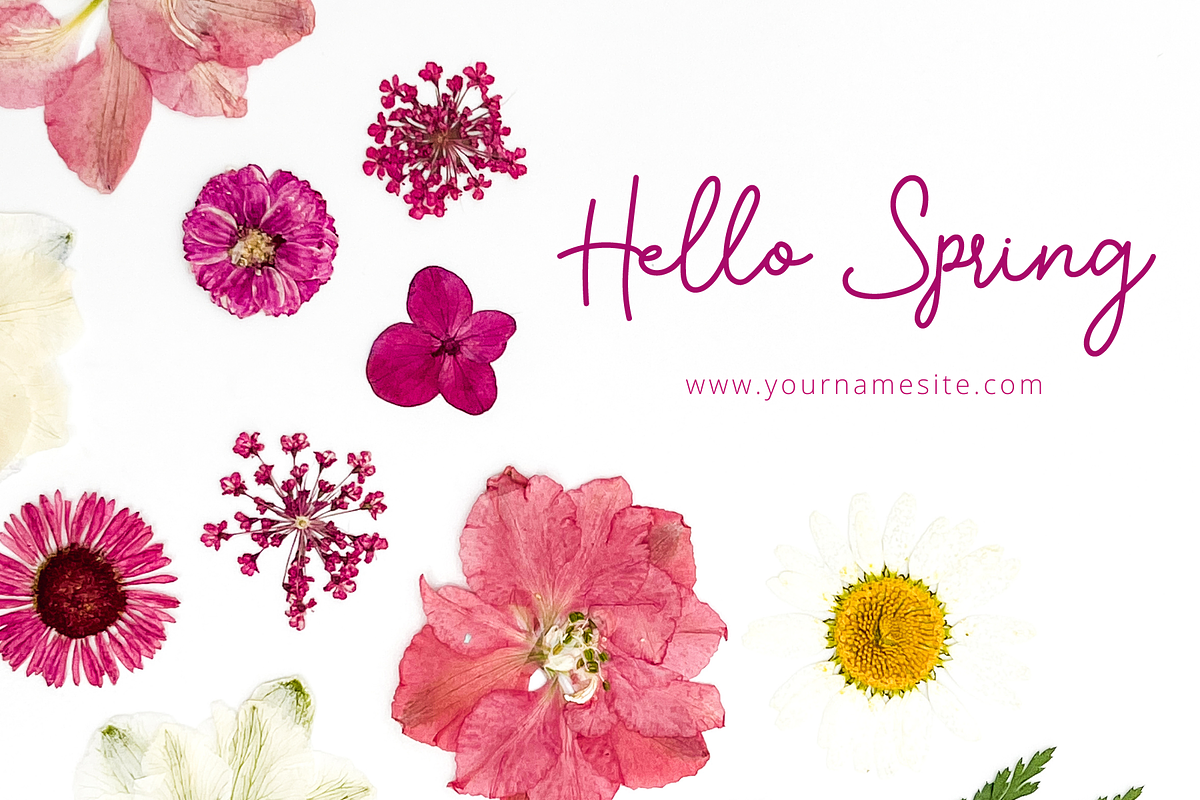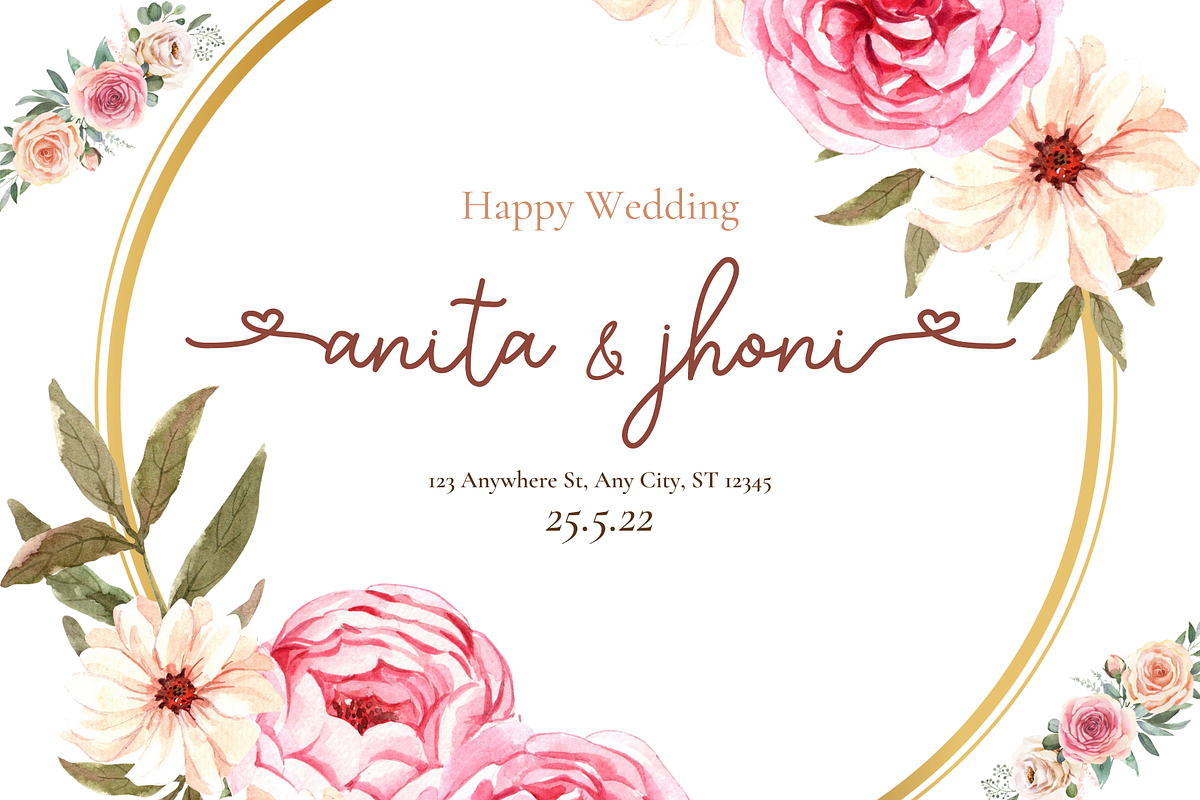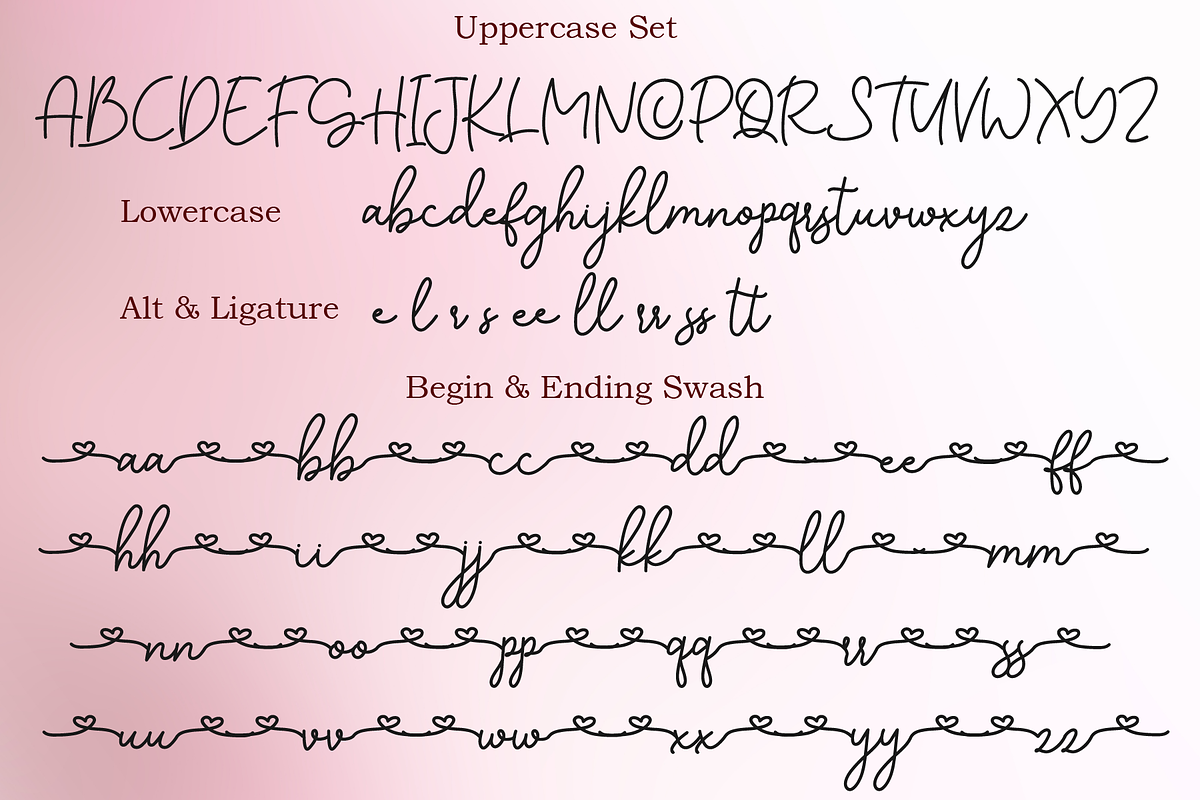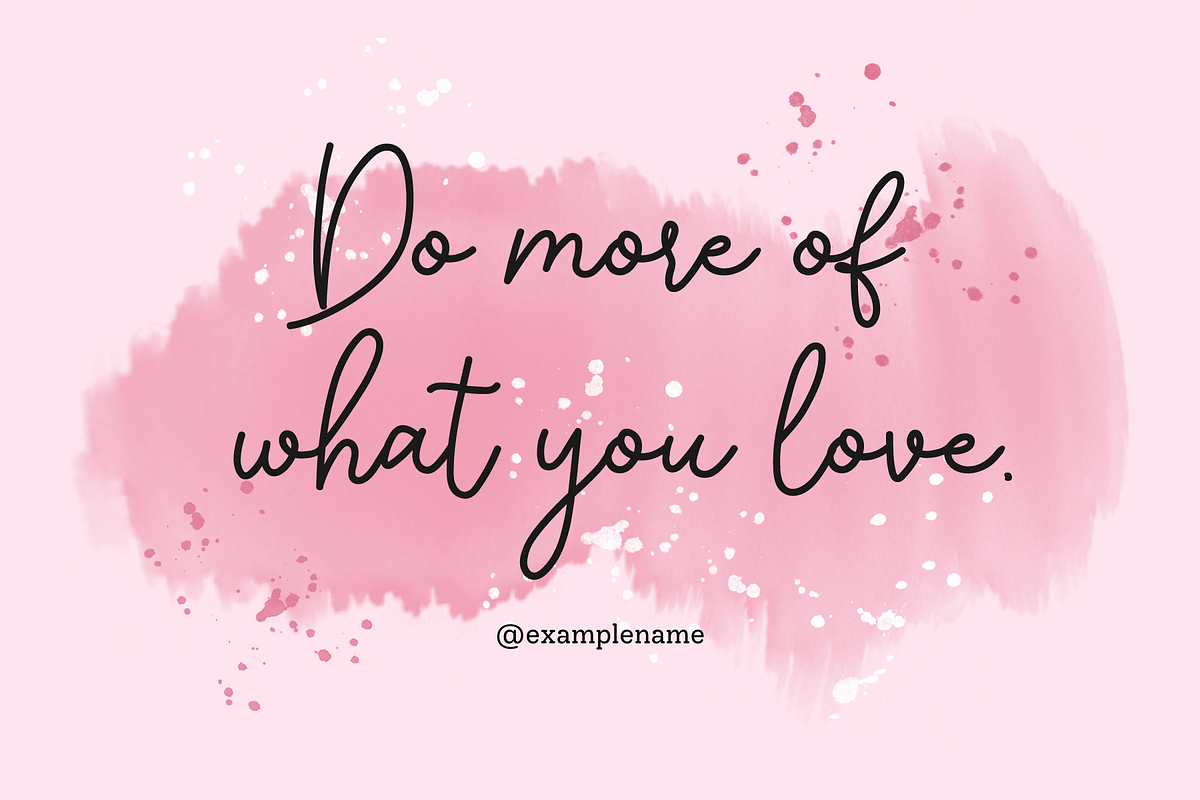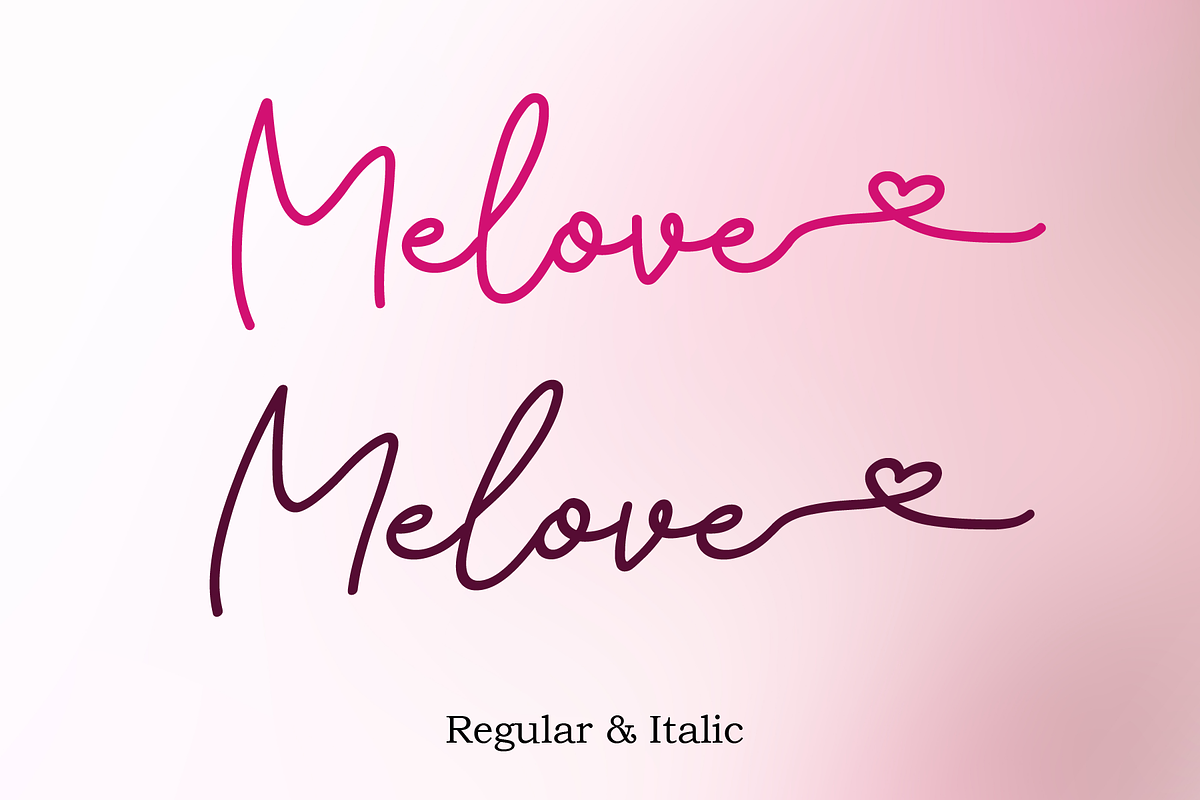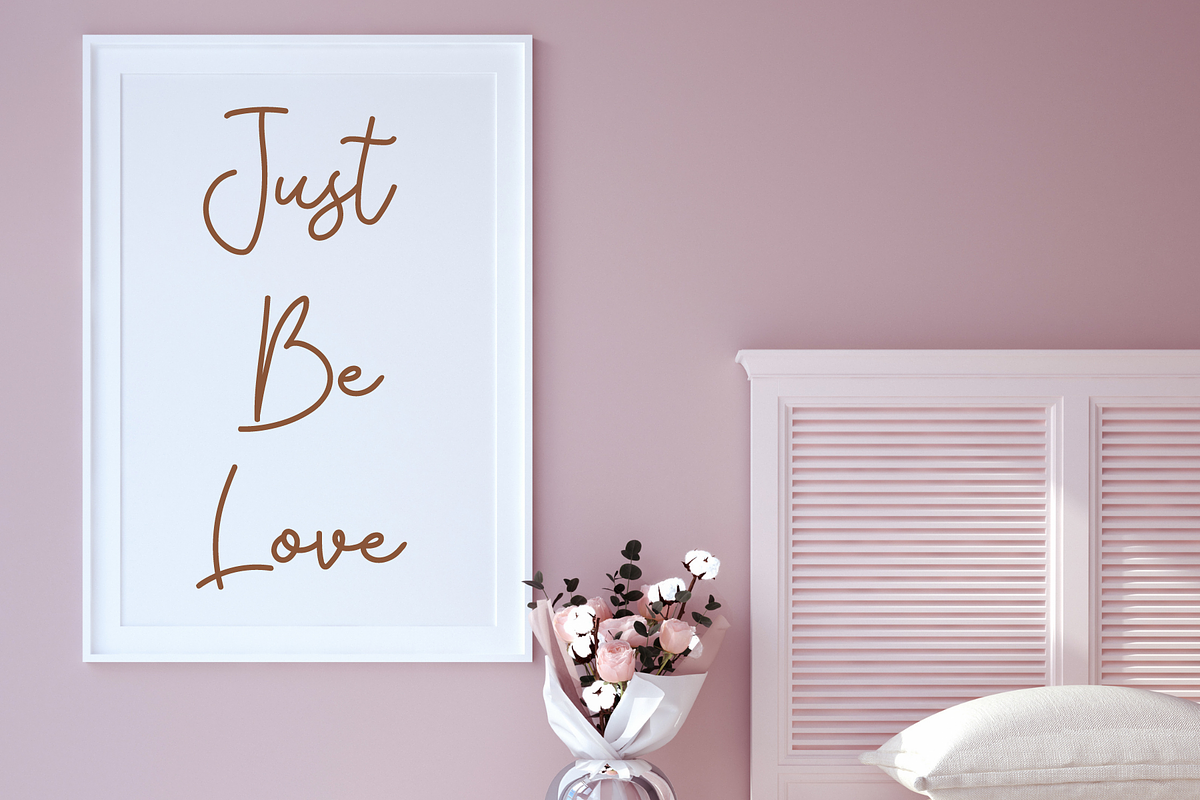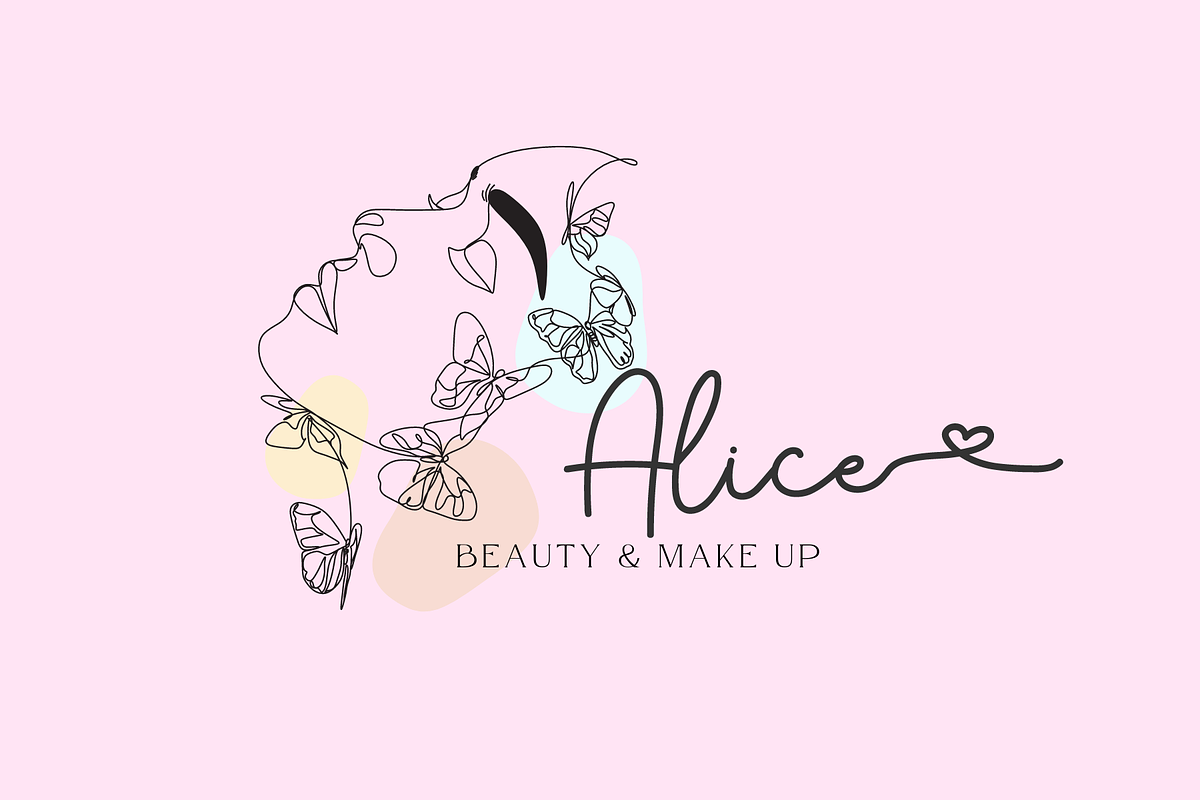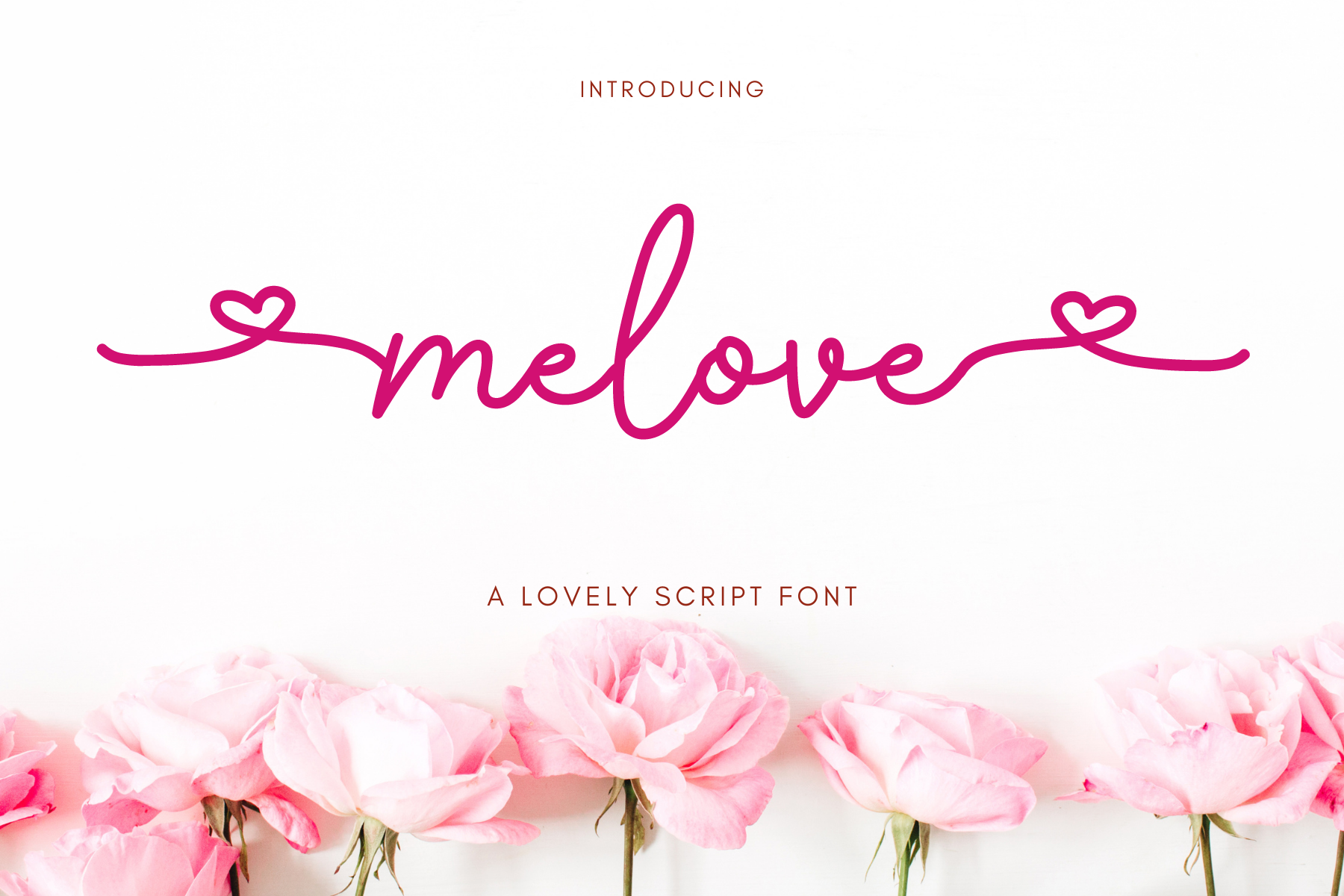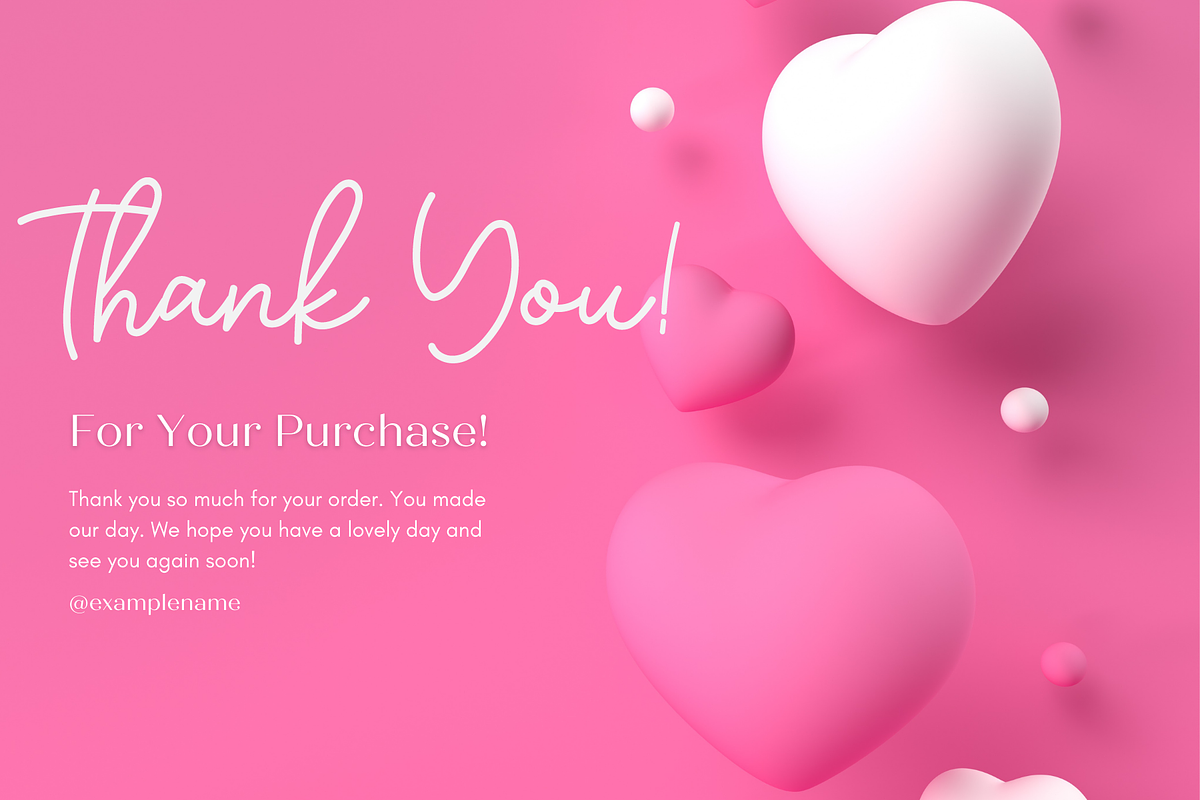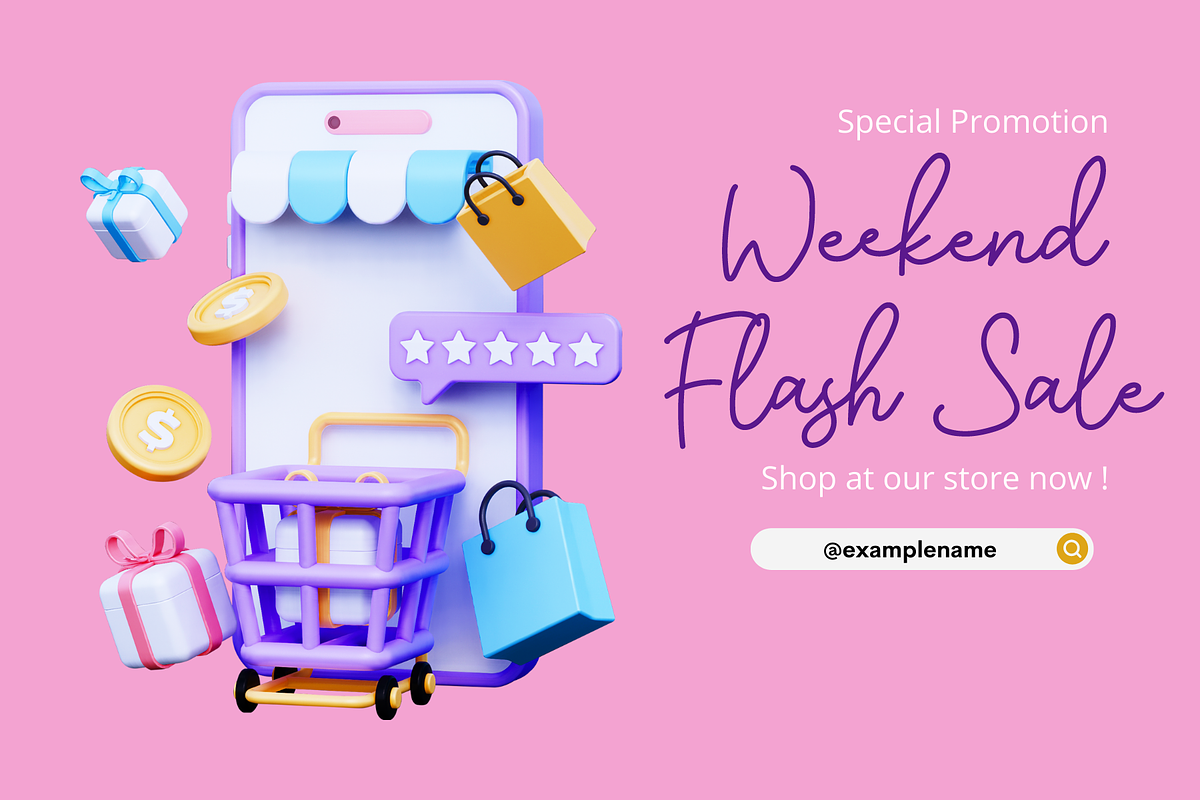
Melove | Lovely Font
Introducing
Melove Font Melove is a lovely script font. Its charm makes it appear wonderfully, readable, and, ultimately, incredibly versatile. Comes in Regular and Italic styles. Equipped with beginning and ending love tail. This font will look outstanding in any context, whether it’s being used on busy backgrounds or as a standalone headline!